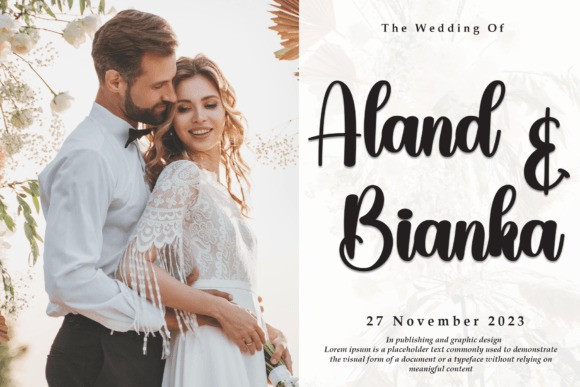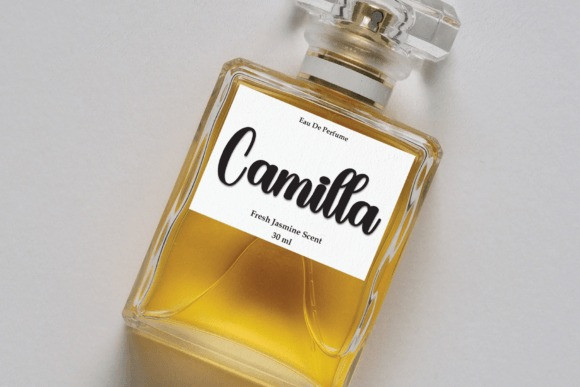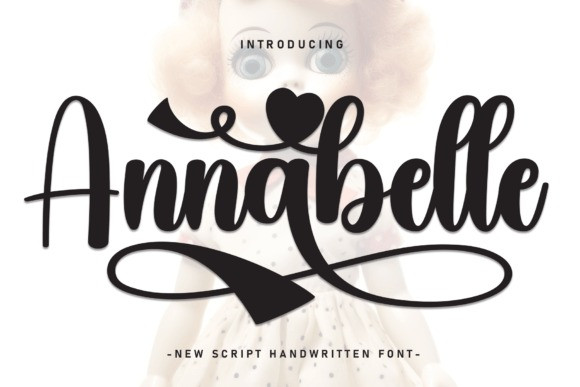
Annabelle Script Typeface
Annabelle Script Typeface, special creative products for you, our products will give you an extraordinary experience. the latest style letters are perfect for wall displays, wedding invitations, social media post logos, advertisements, product packaging, product designs, labels, photography, watermarks, invitations, stationery, and any project that requires taste handwriting.